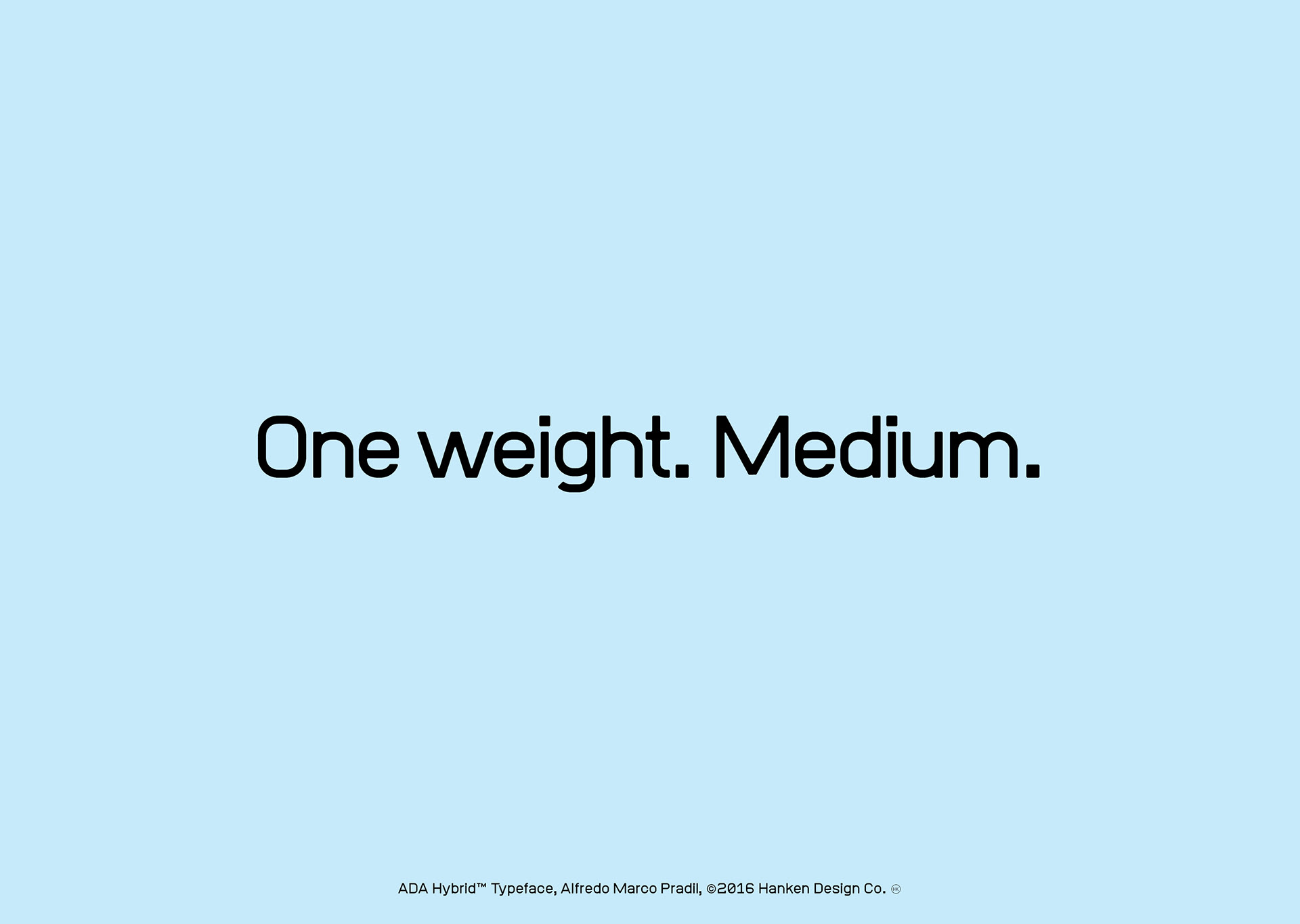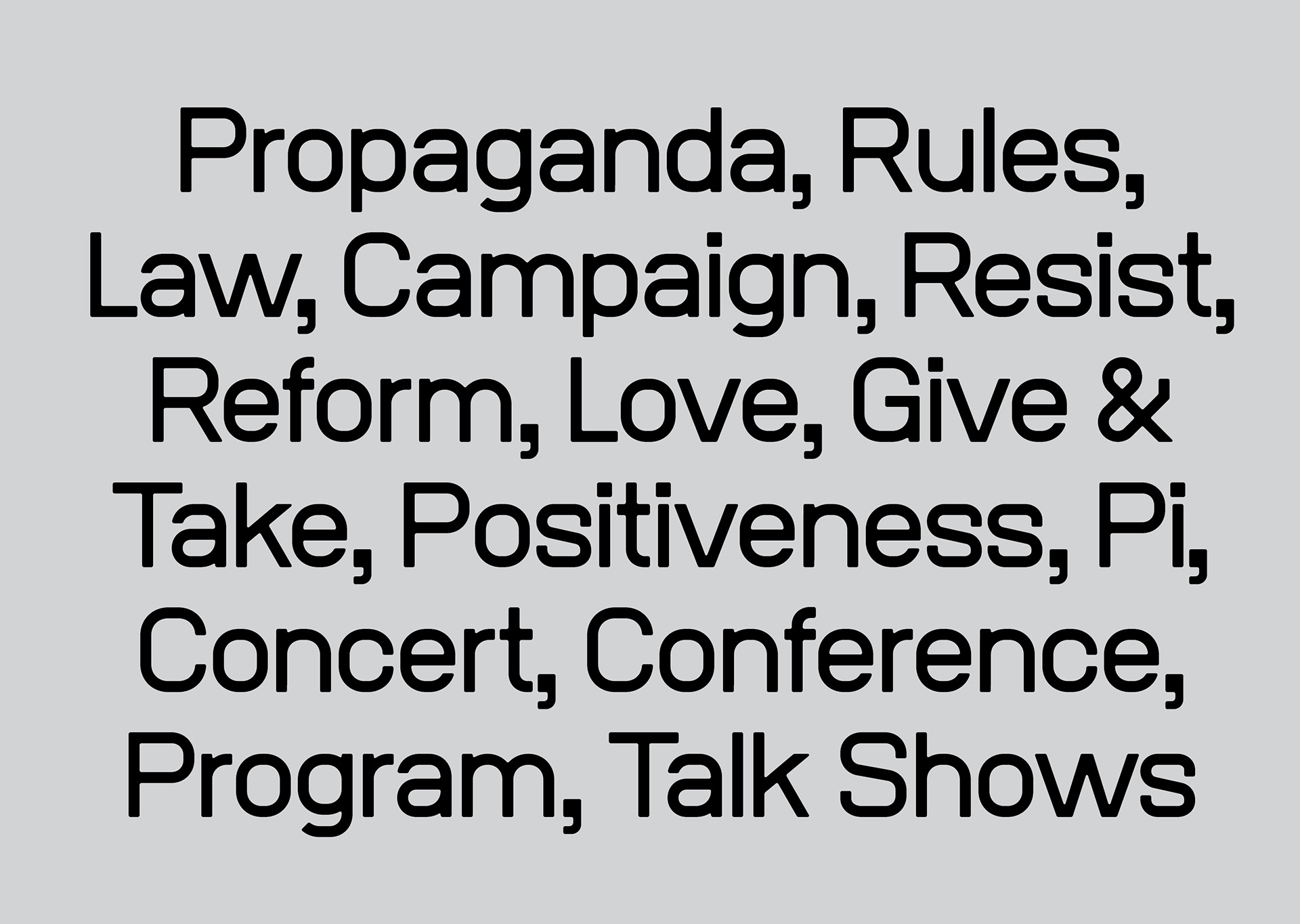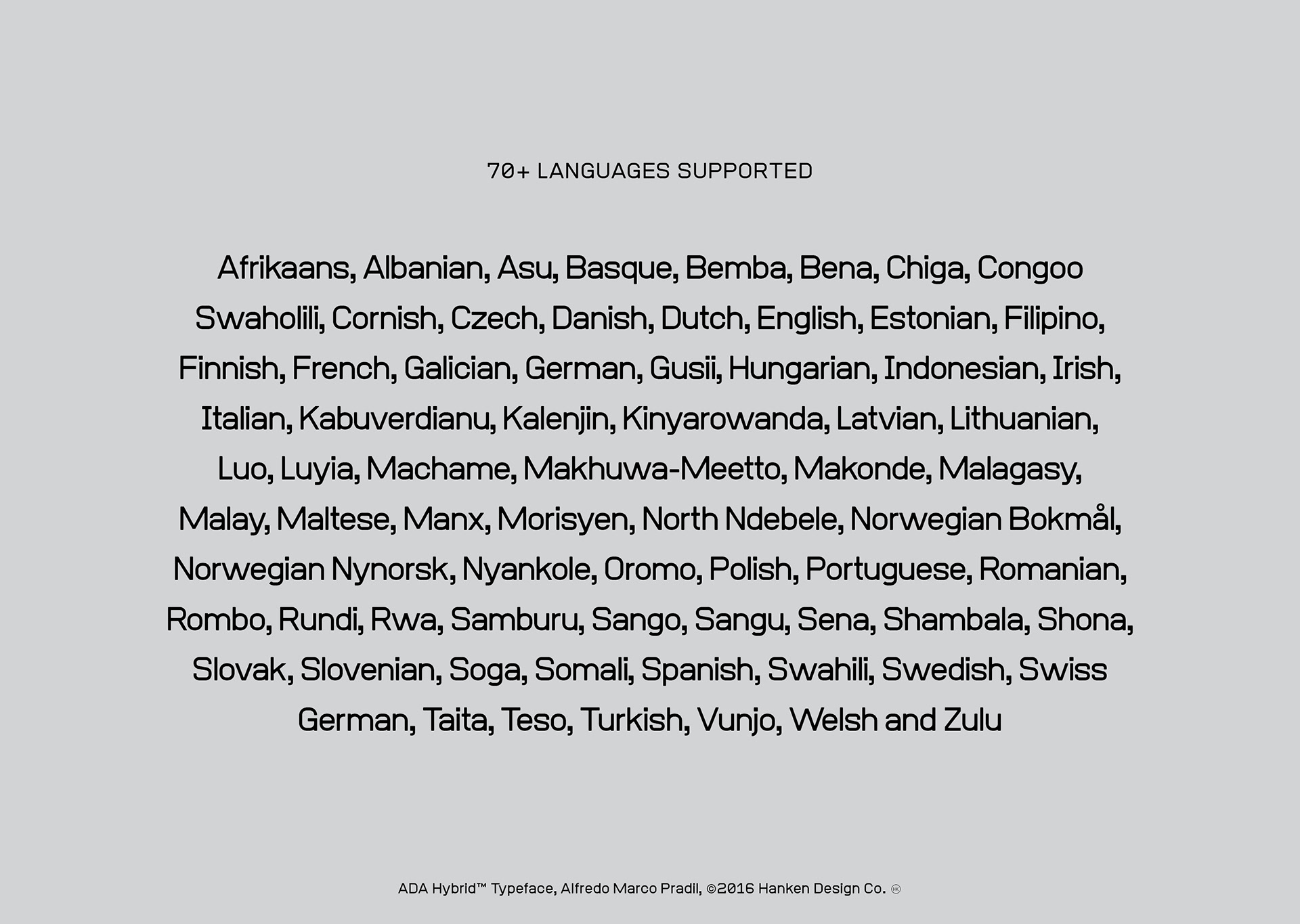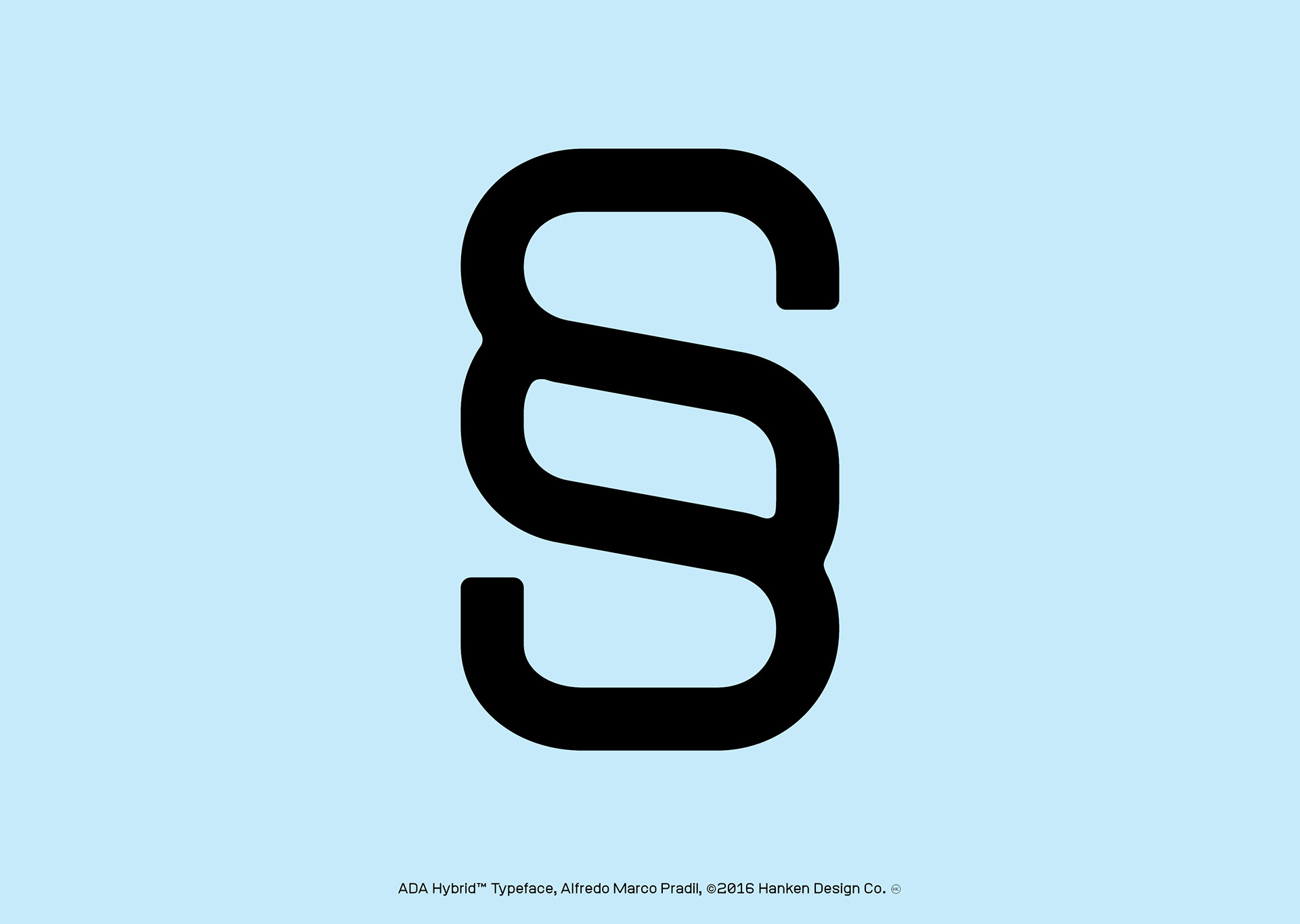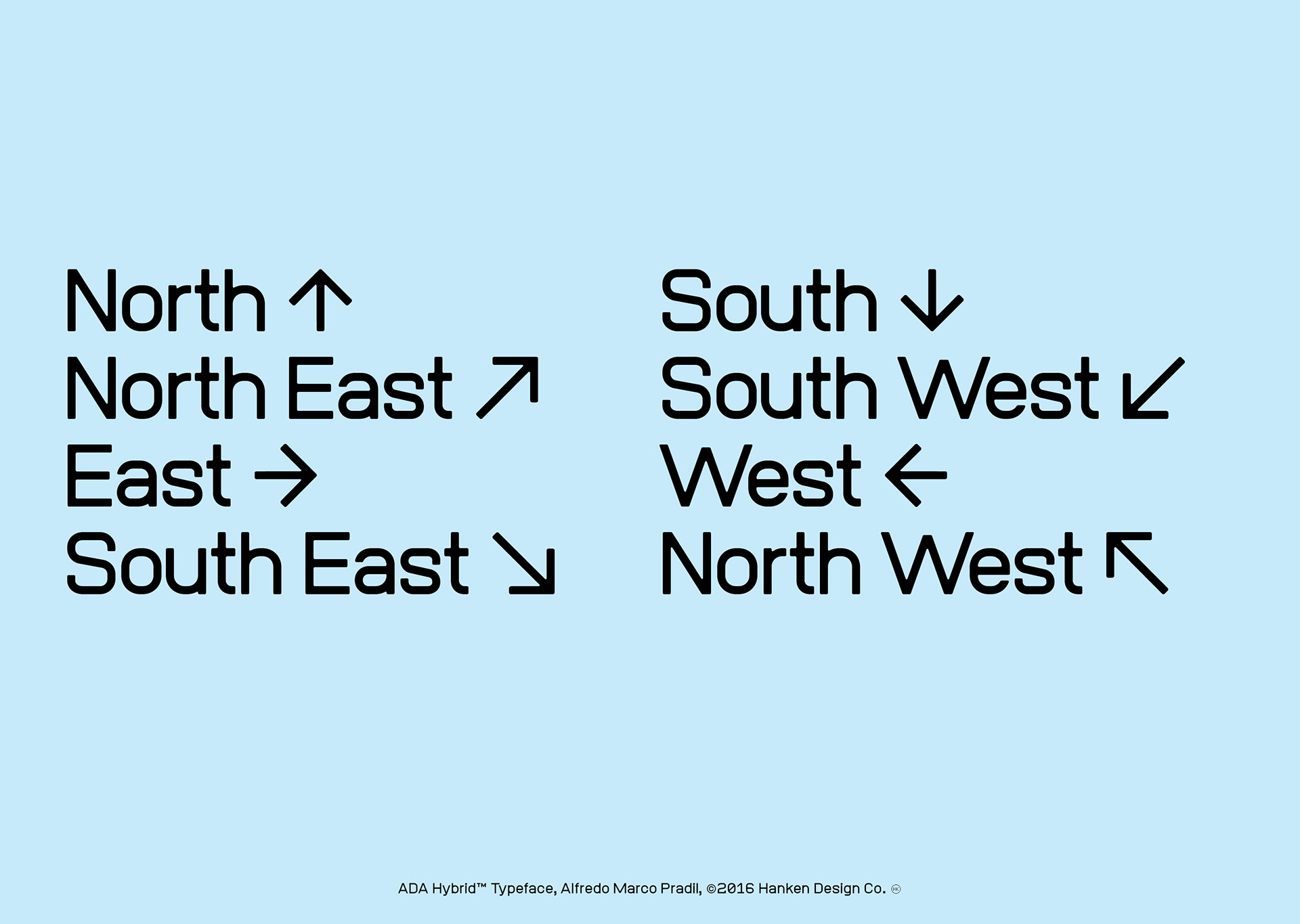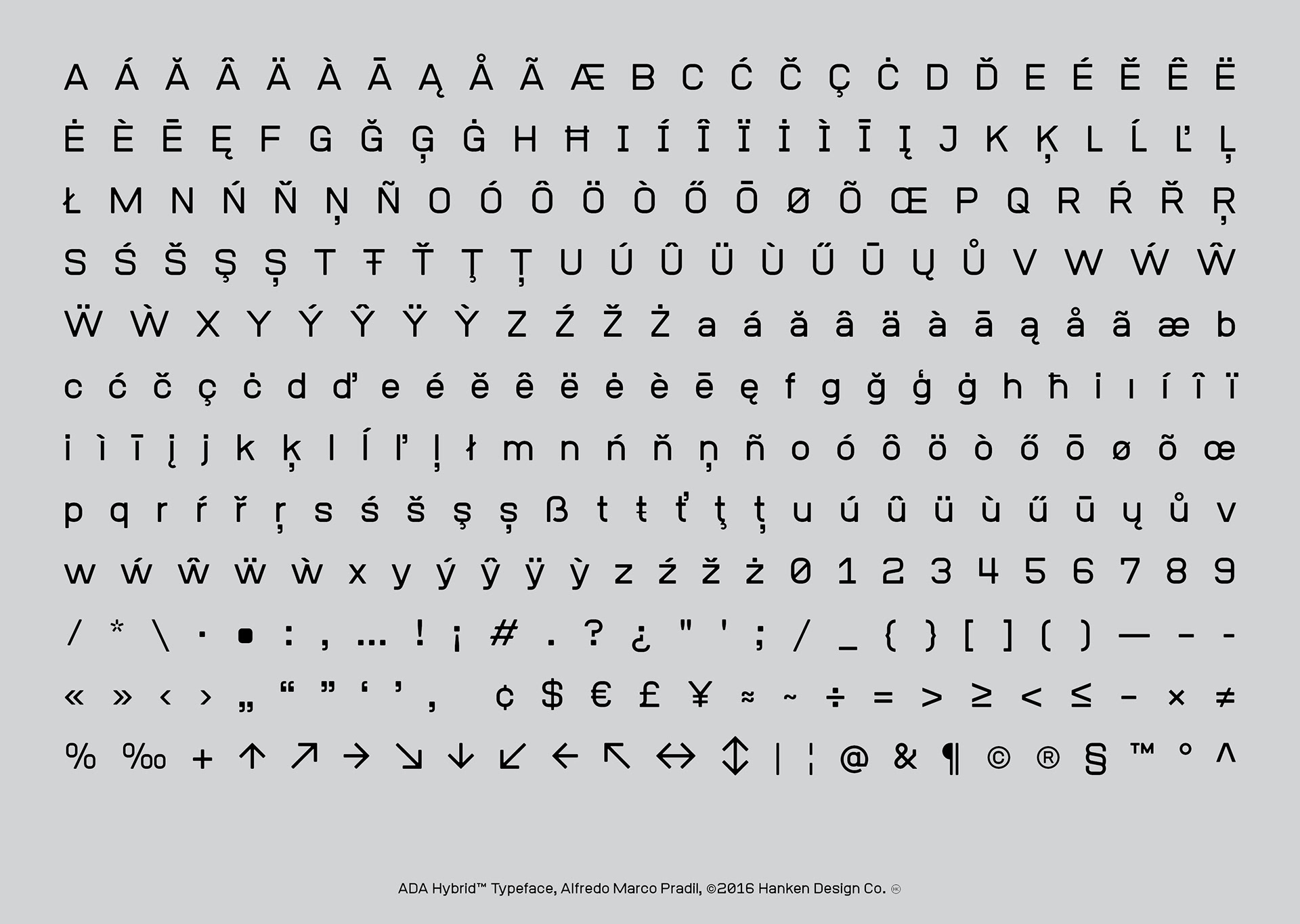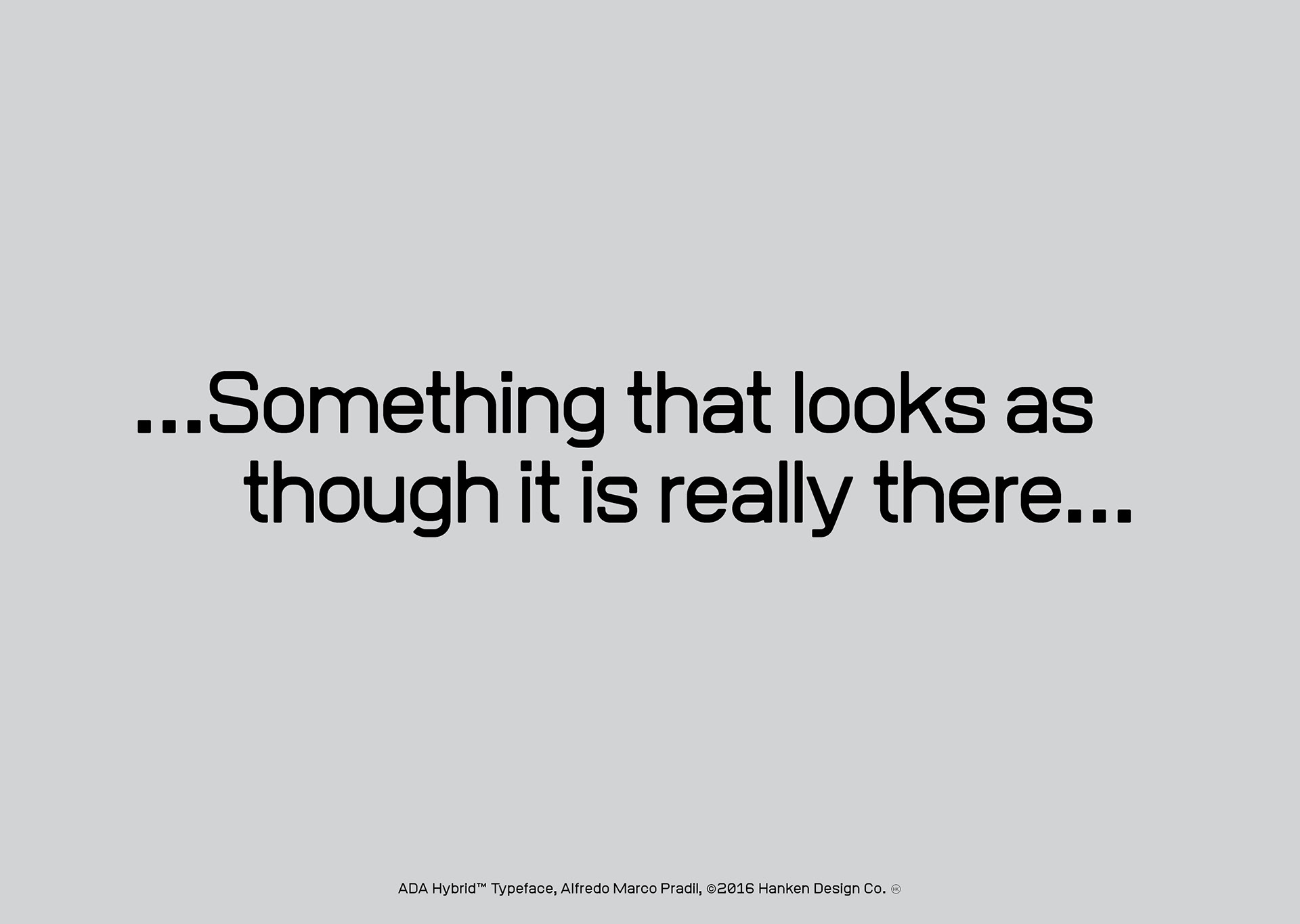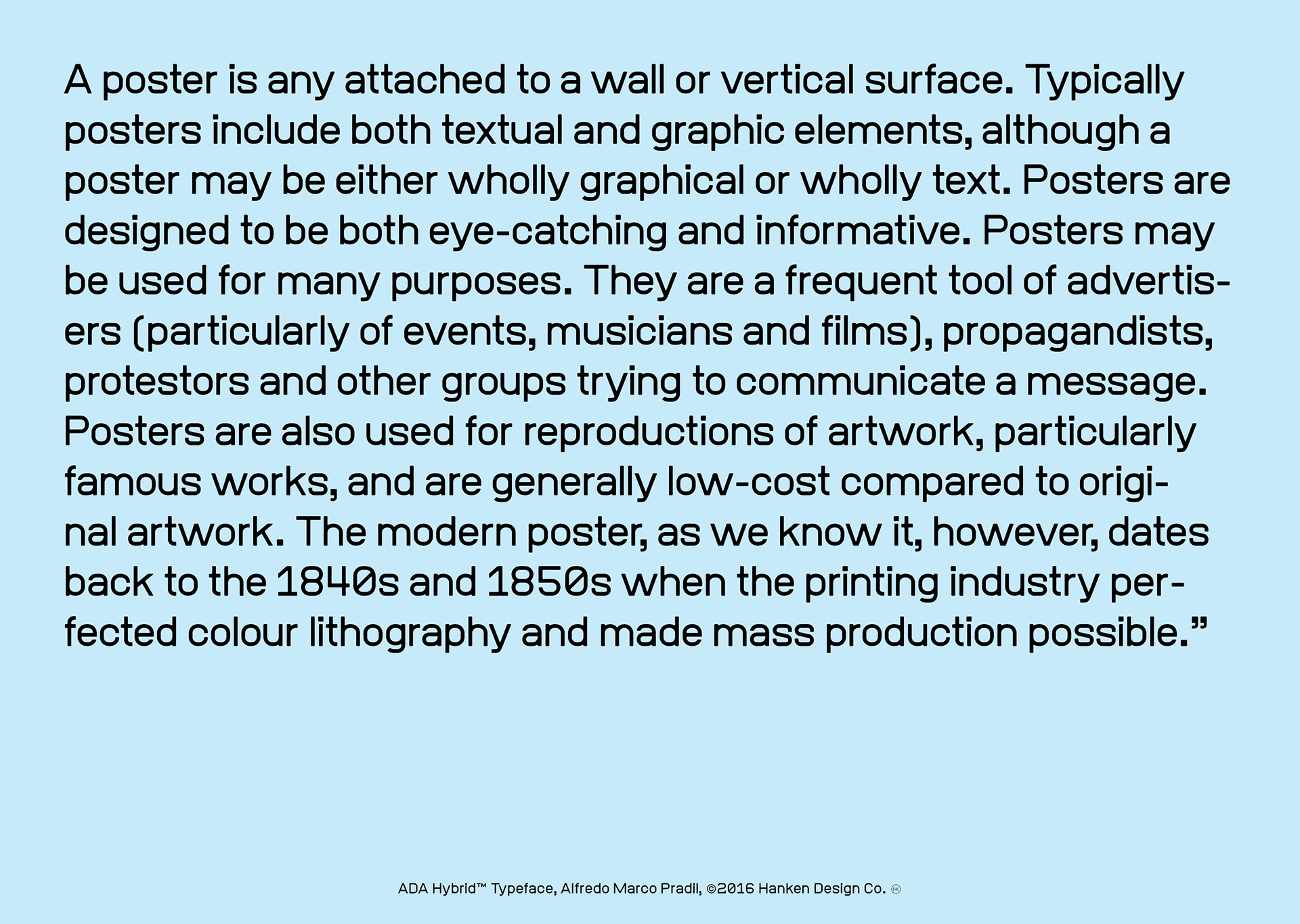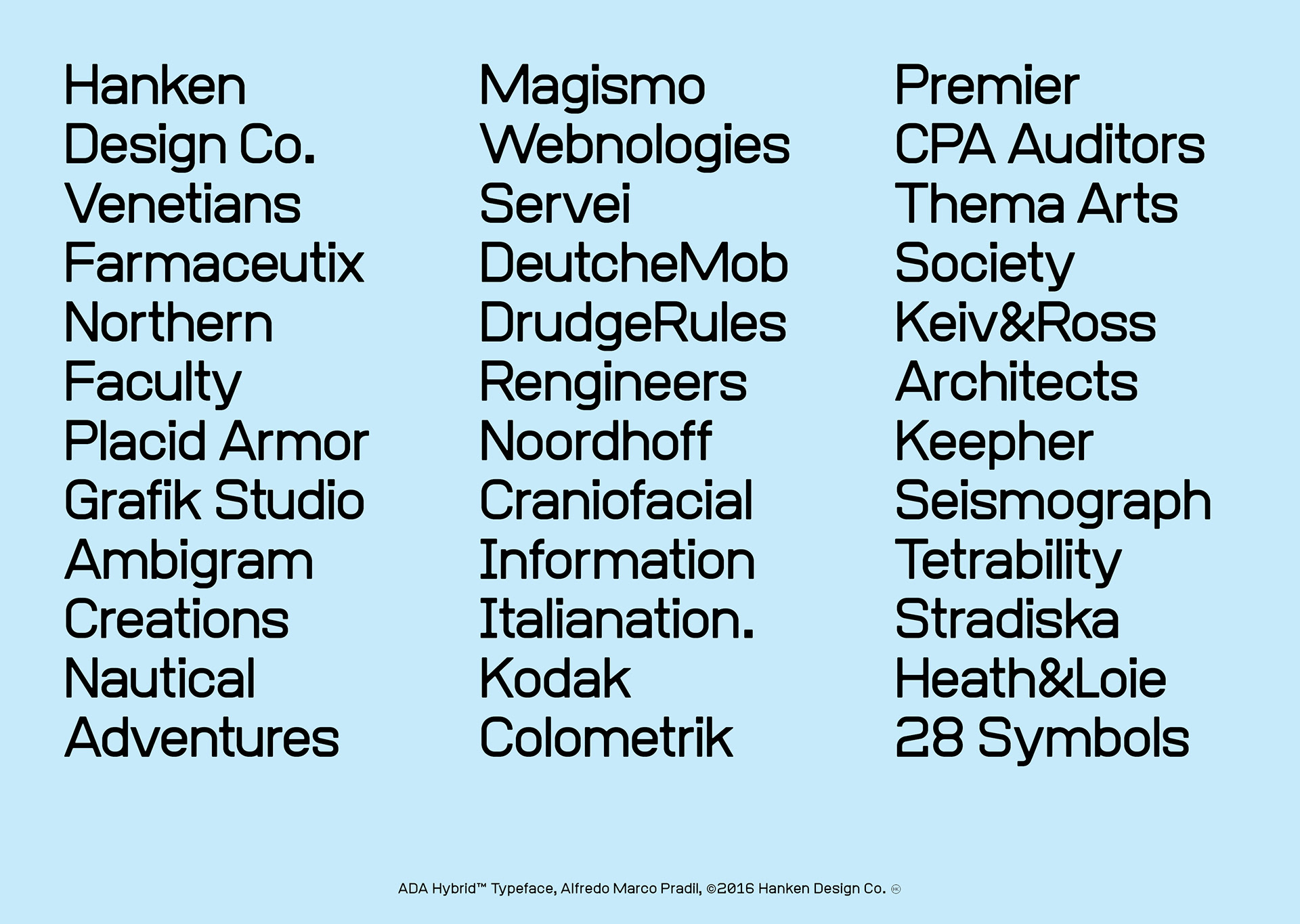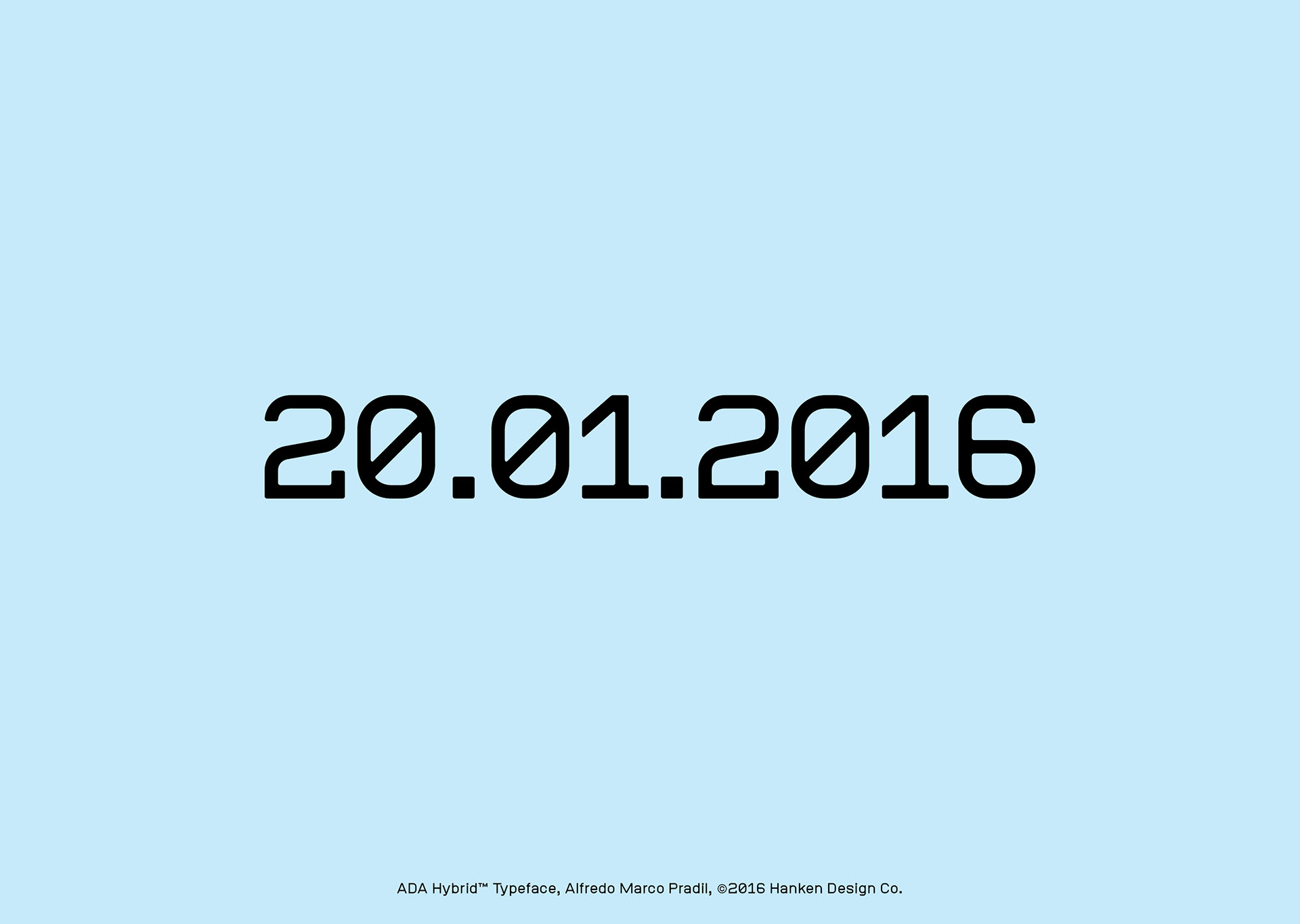
ADA Hybrid™ is a display typeface drawn without linear contrast and a combination of square and round glyphs. The combination of shapes and the discipline to not optically adjust the forms resulted in a typeface with character—a face that may take on different personalities but not being neutral in our current culture's perception. ADA Hybrid has been used for posters and user interfaces because of the legible characters.